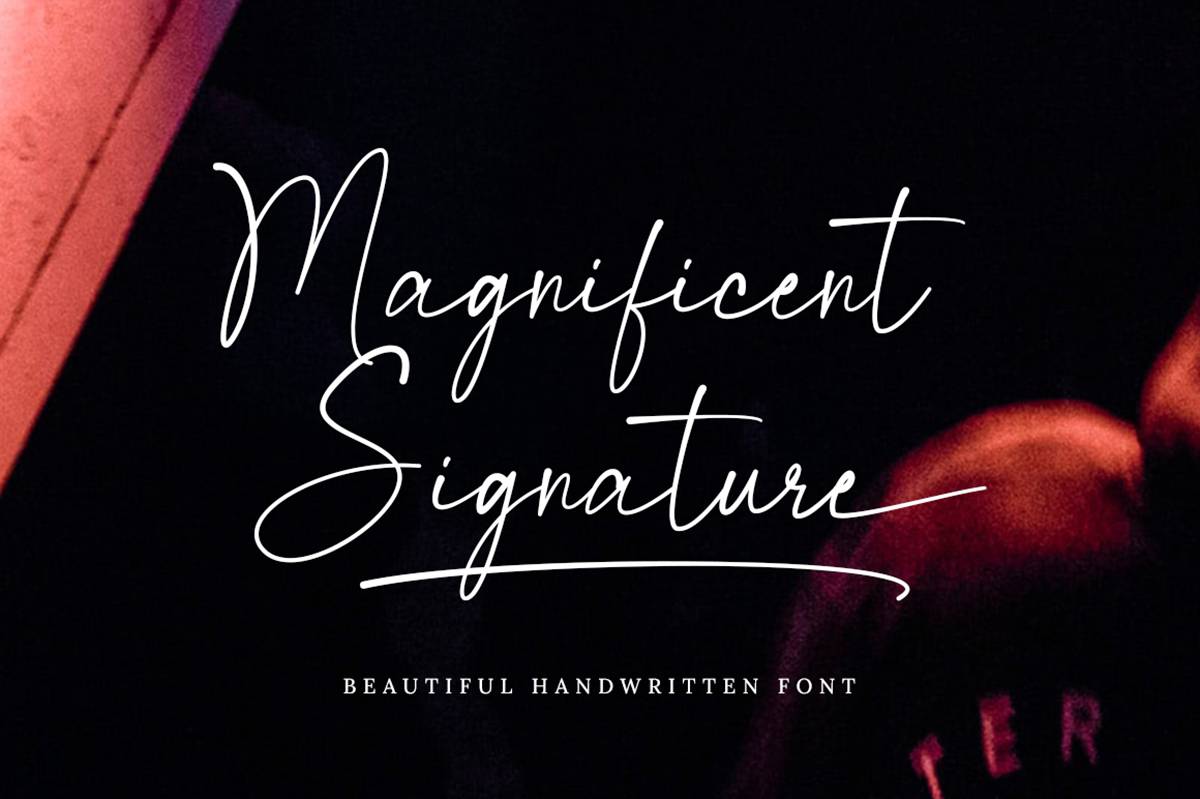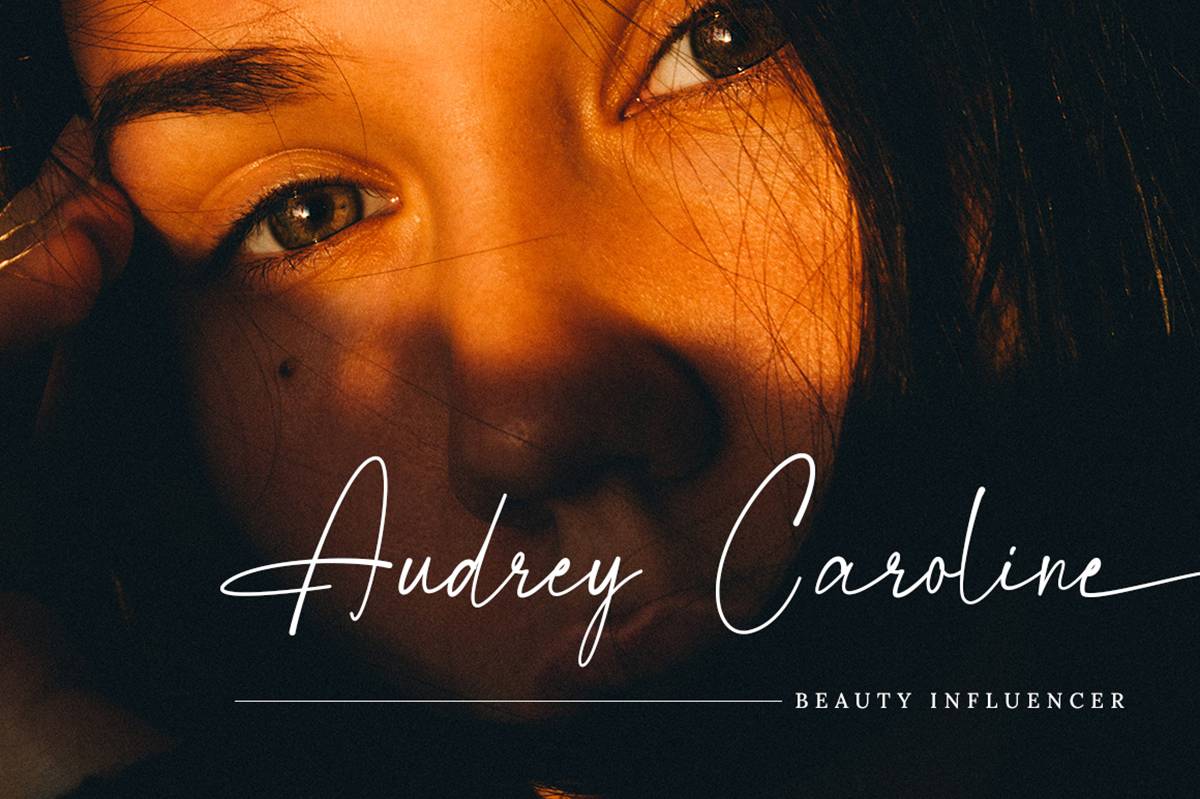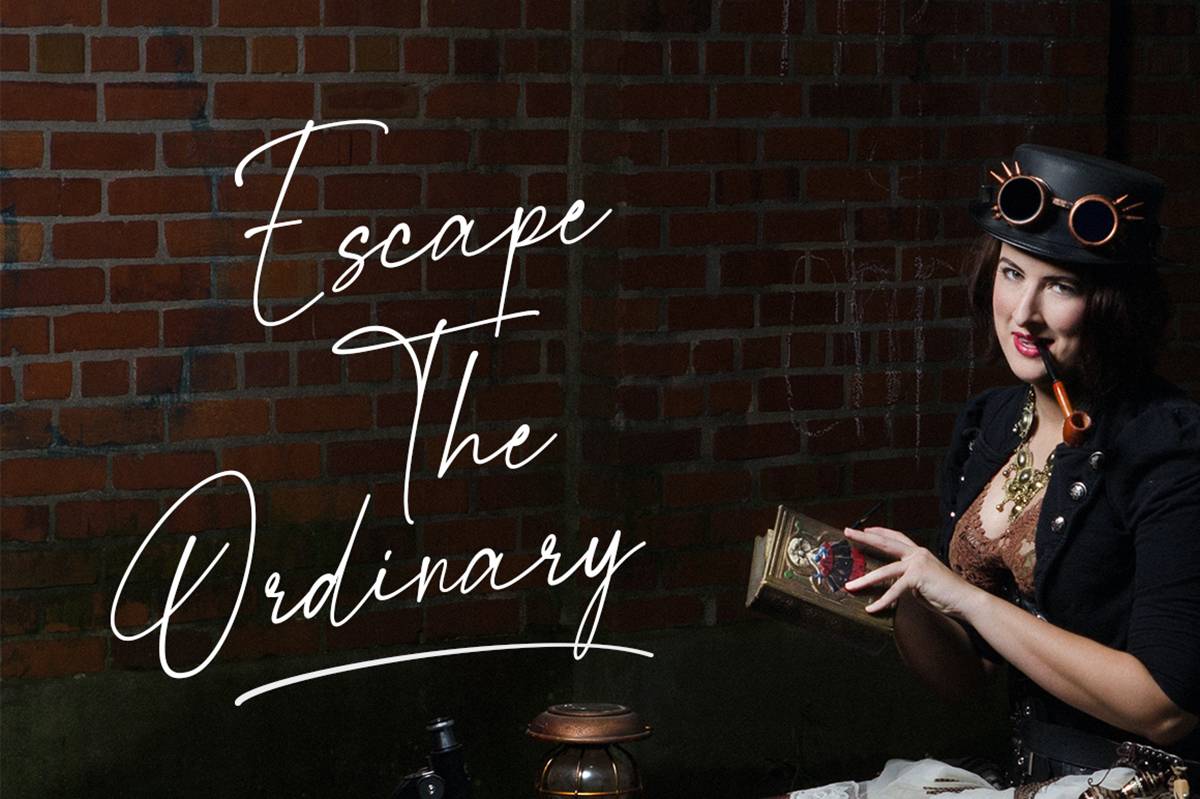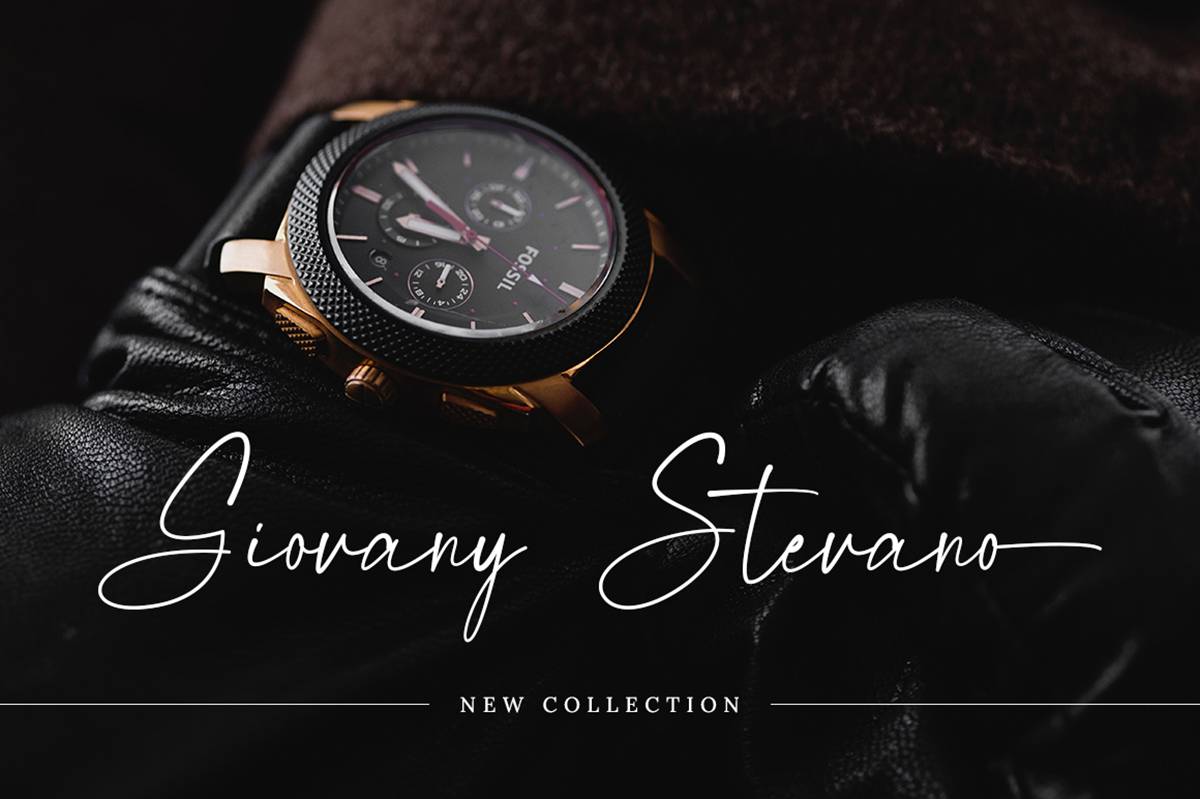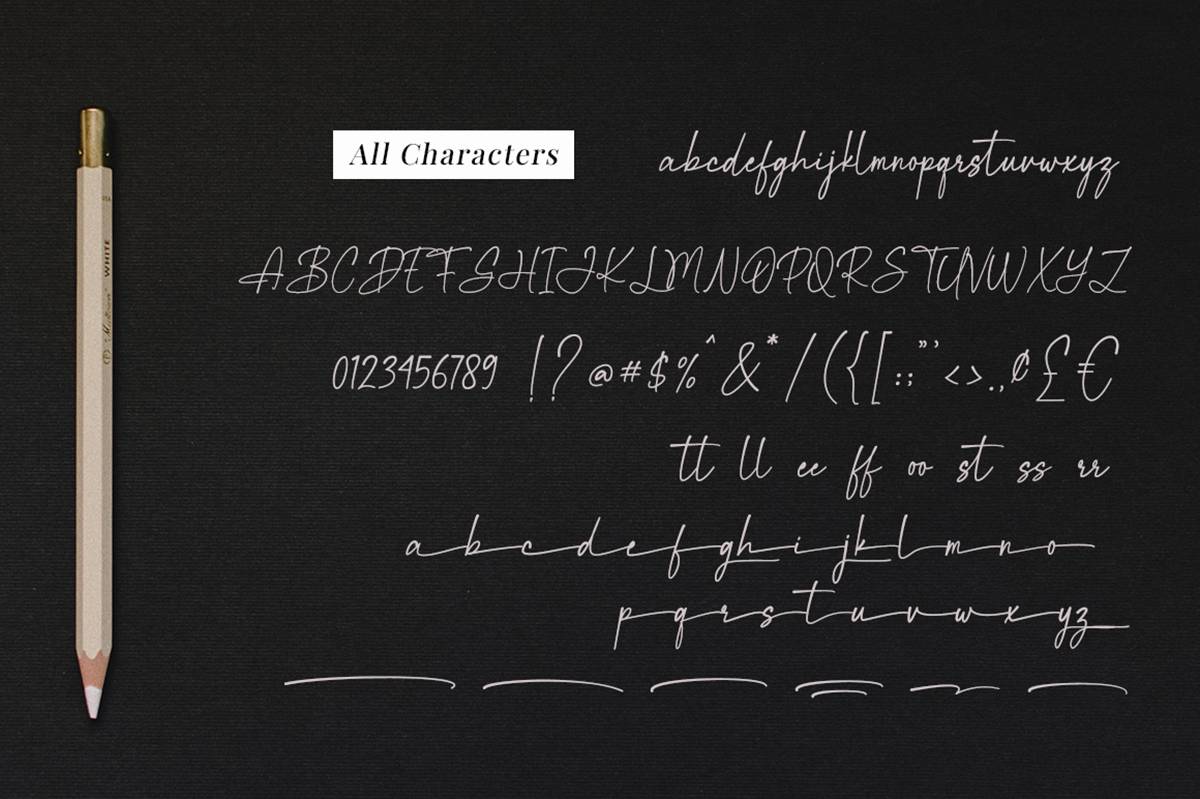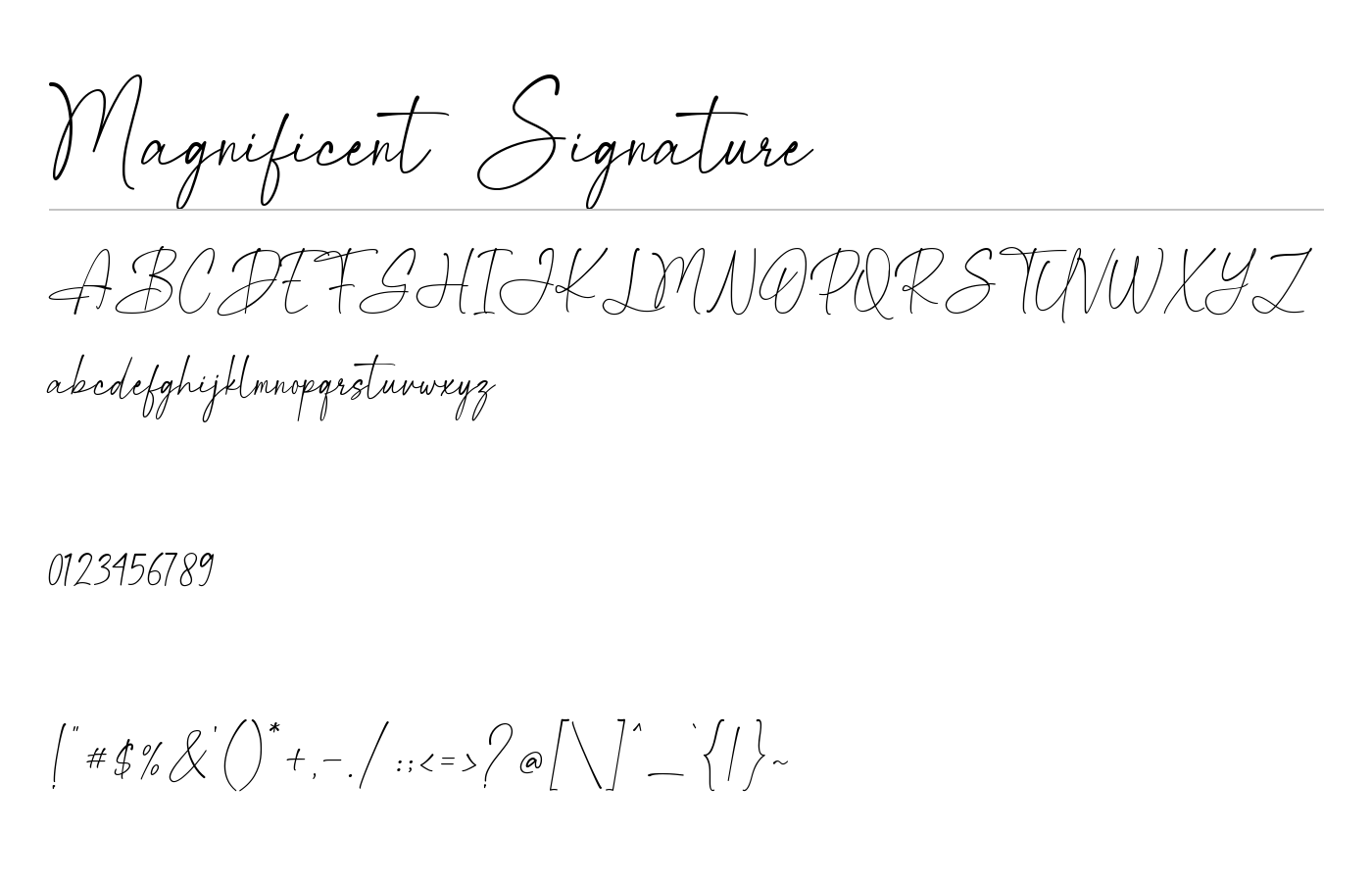
Magnificent Signature is a delicate, handwritten script font that captures an elegant and personal feel with its thin, flowing lines and graceful letterforms. Its slender weight and cursive style make it ideal for branding, invitations, and stylish logos where a refined yet approachable touch is desired. Perfect for projects seeking a modern sophistication with a natural, signature-like charm.
Magnificent Signature Font
About Magnificent Signature Font